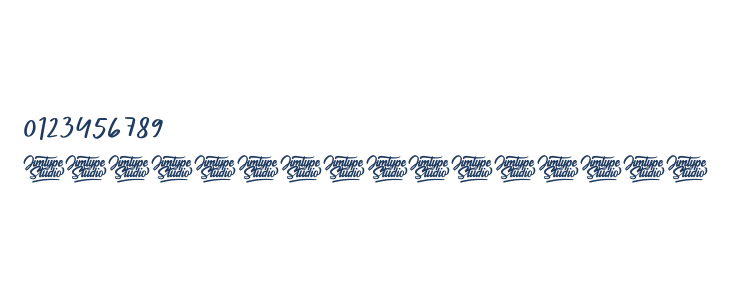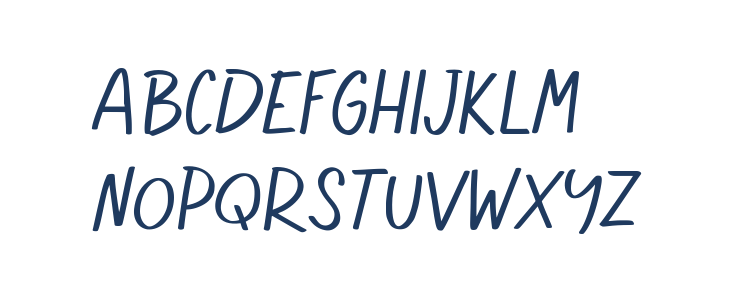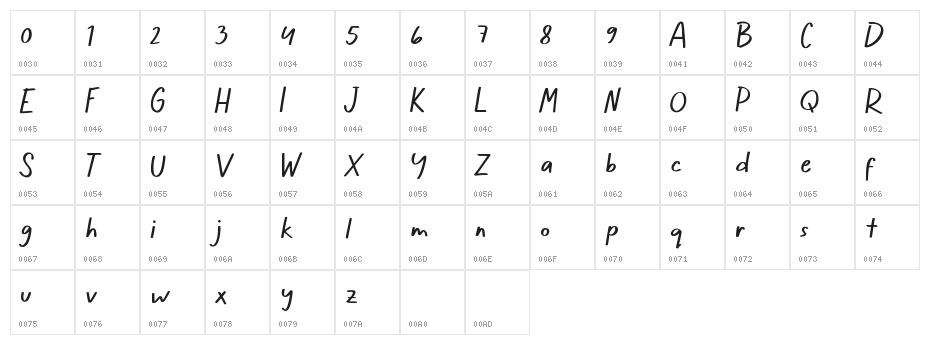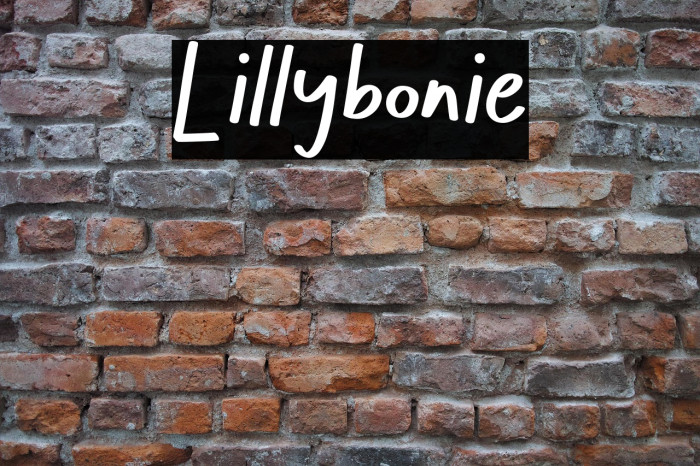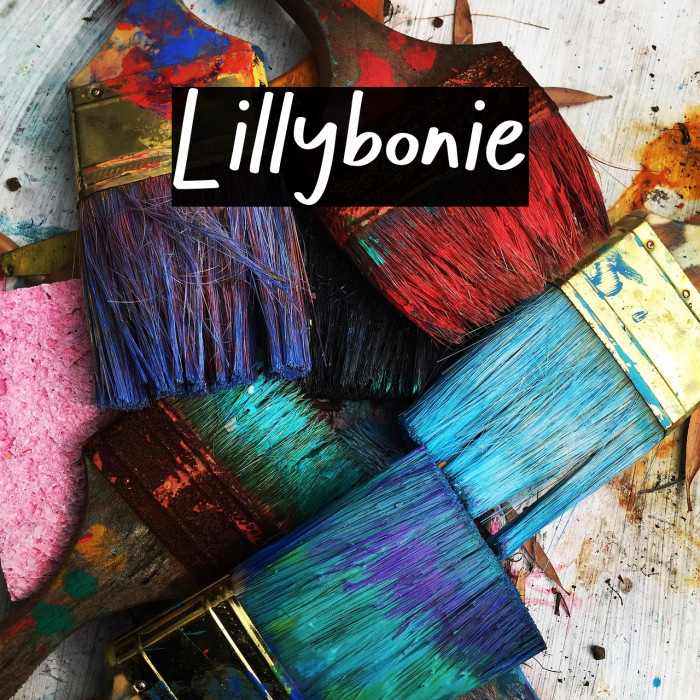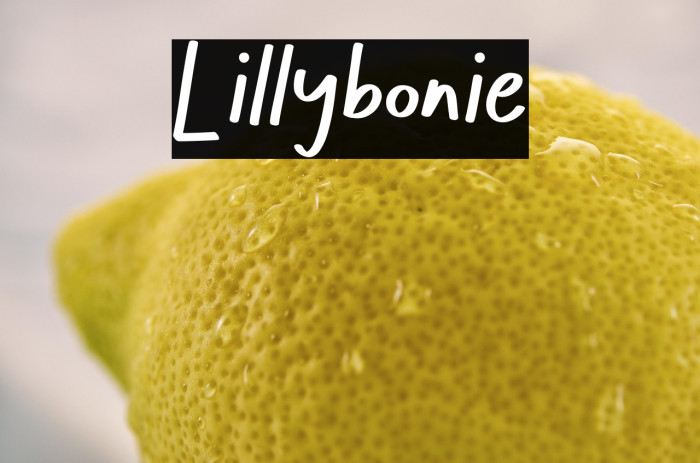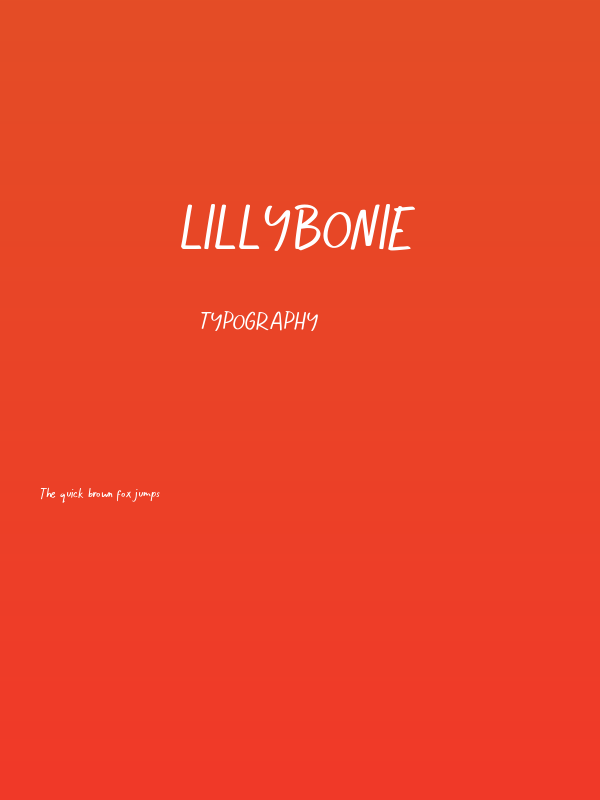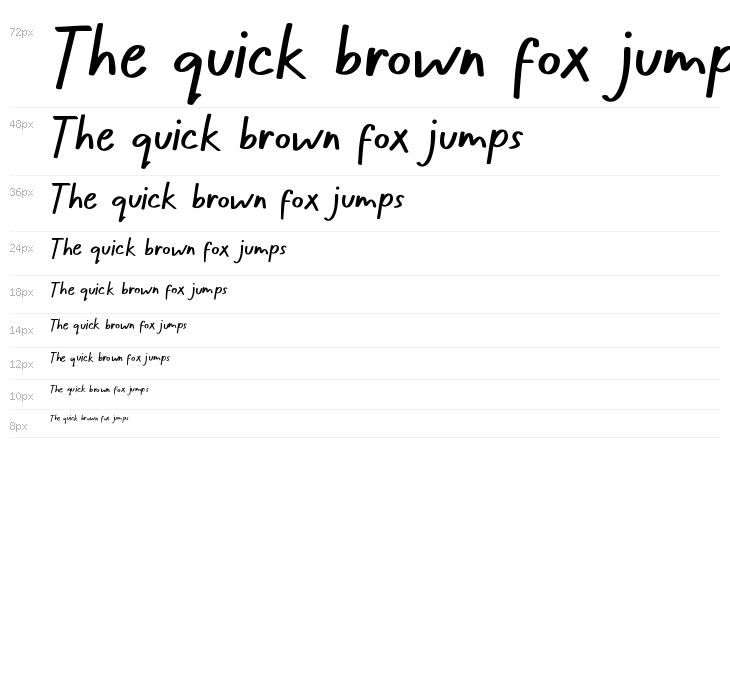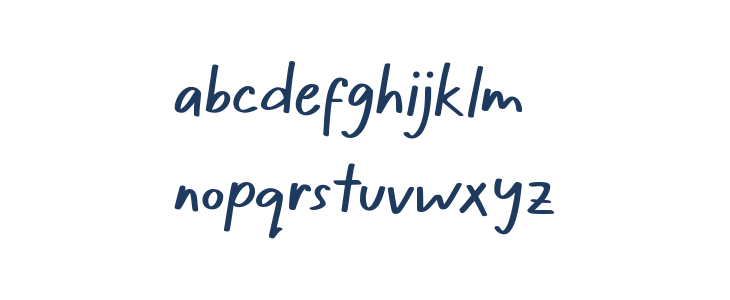
Lillybonie Font
Lillybonie Description
A playful, handwritten typeface with tall, narrow letterforms and slightly irregular strokes, giving it a casual and friendly appearance. The characters have a consistent slant and rounded terminals, contributing to a lively and approachable style.
| Overall Style | Playful, Casual, Friendly |
| Use Case | Headlines, Short text, Quotes, Invitations |
| Proposed Projects | Greeting cards, children's books, informal branding, social media graphics, invitations. |